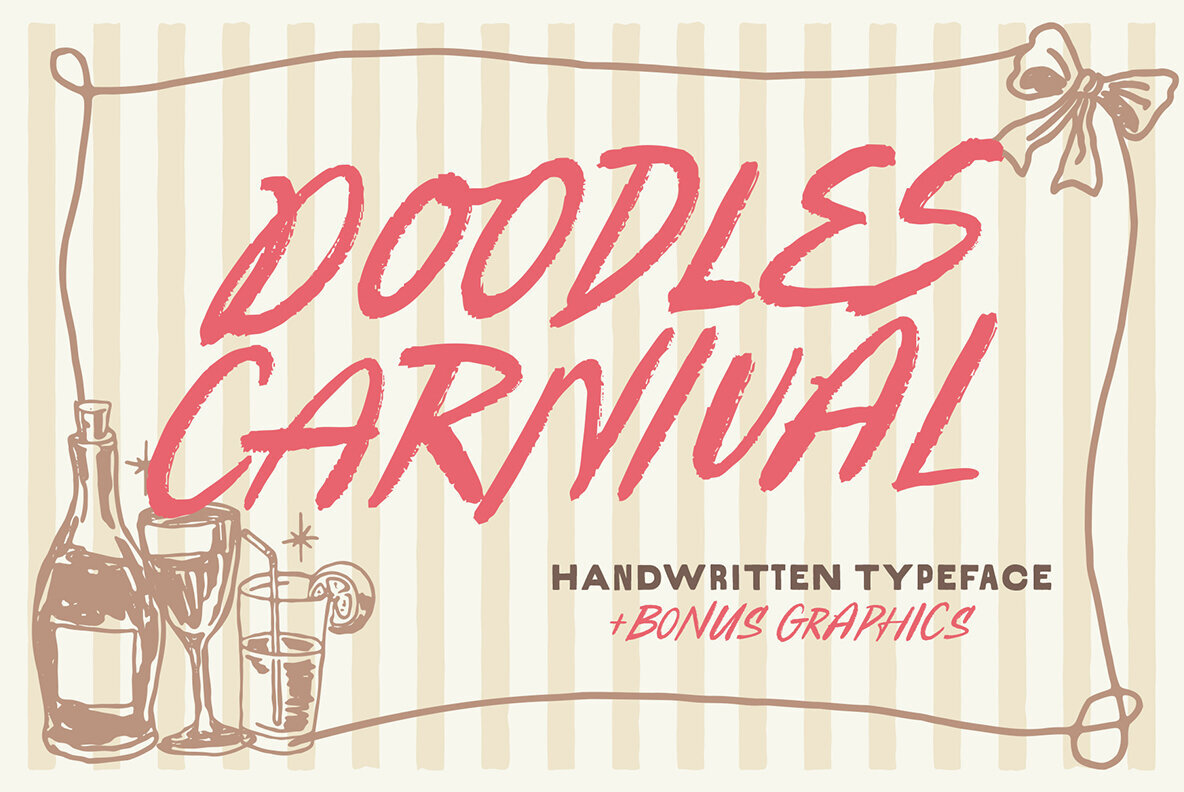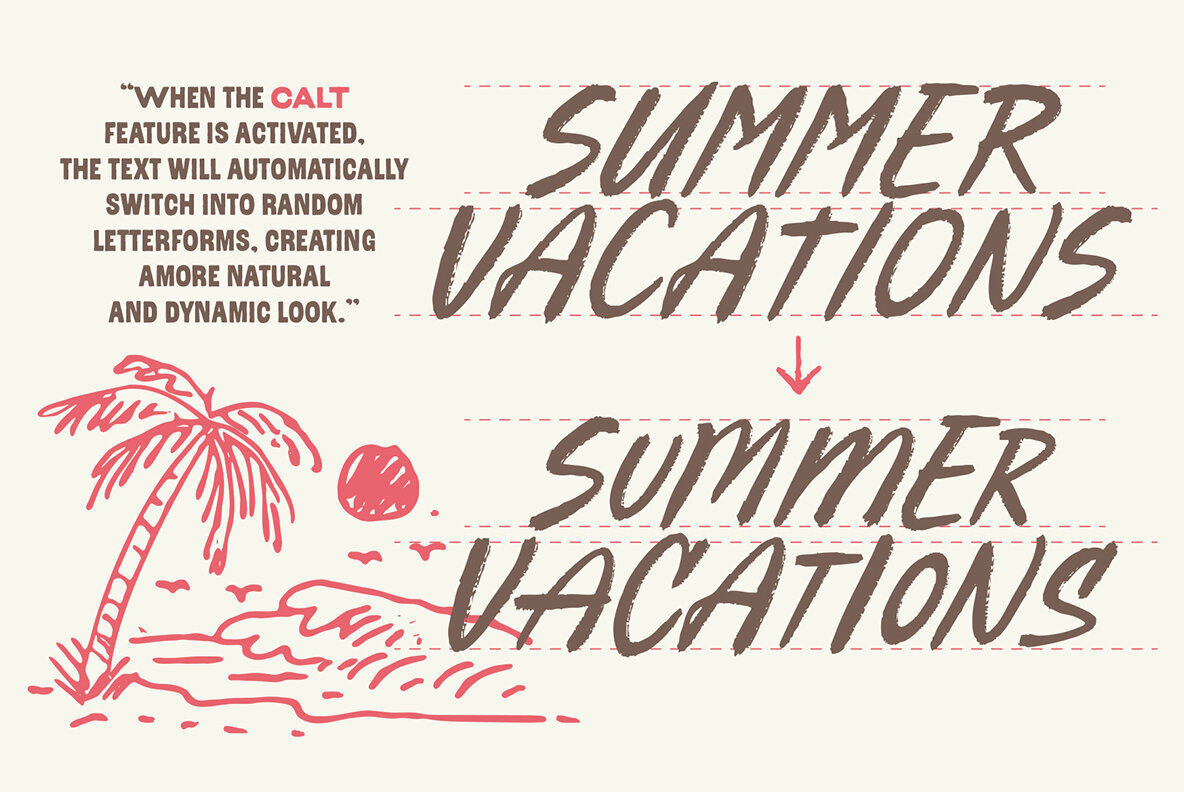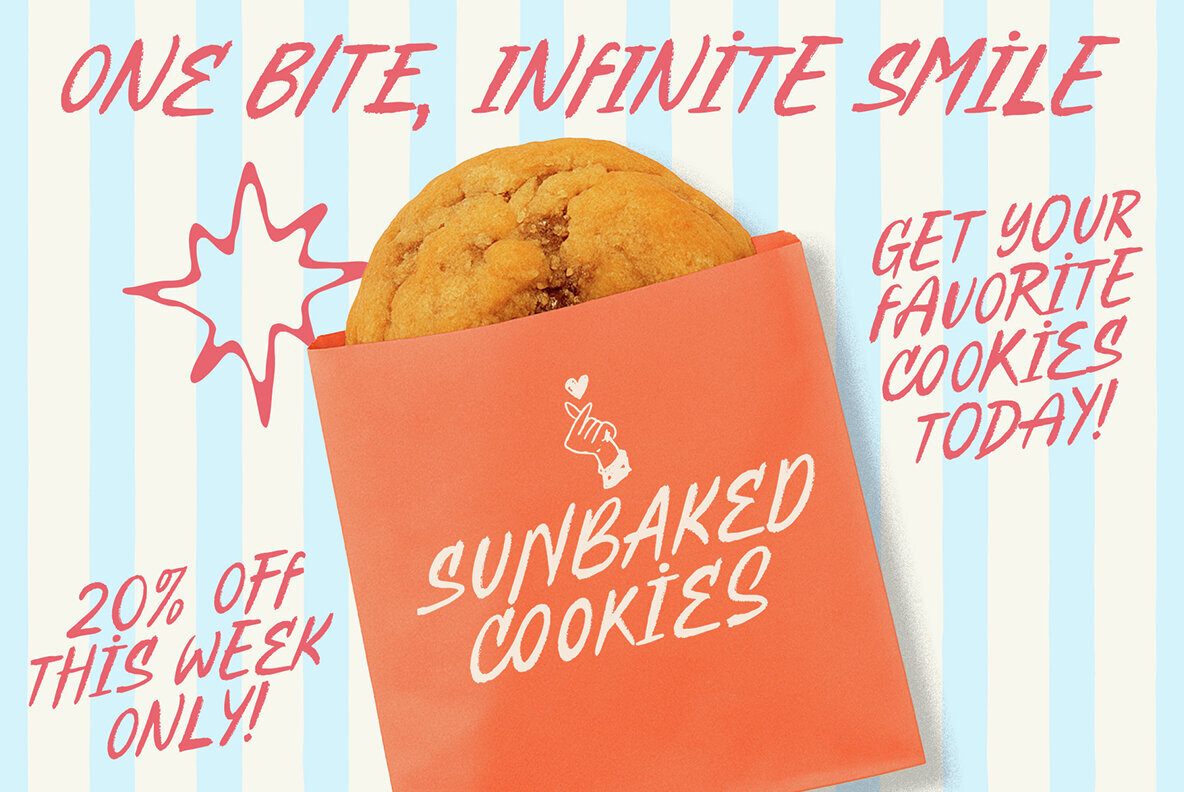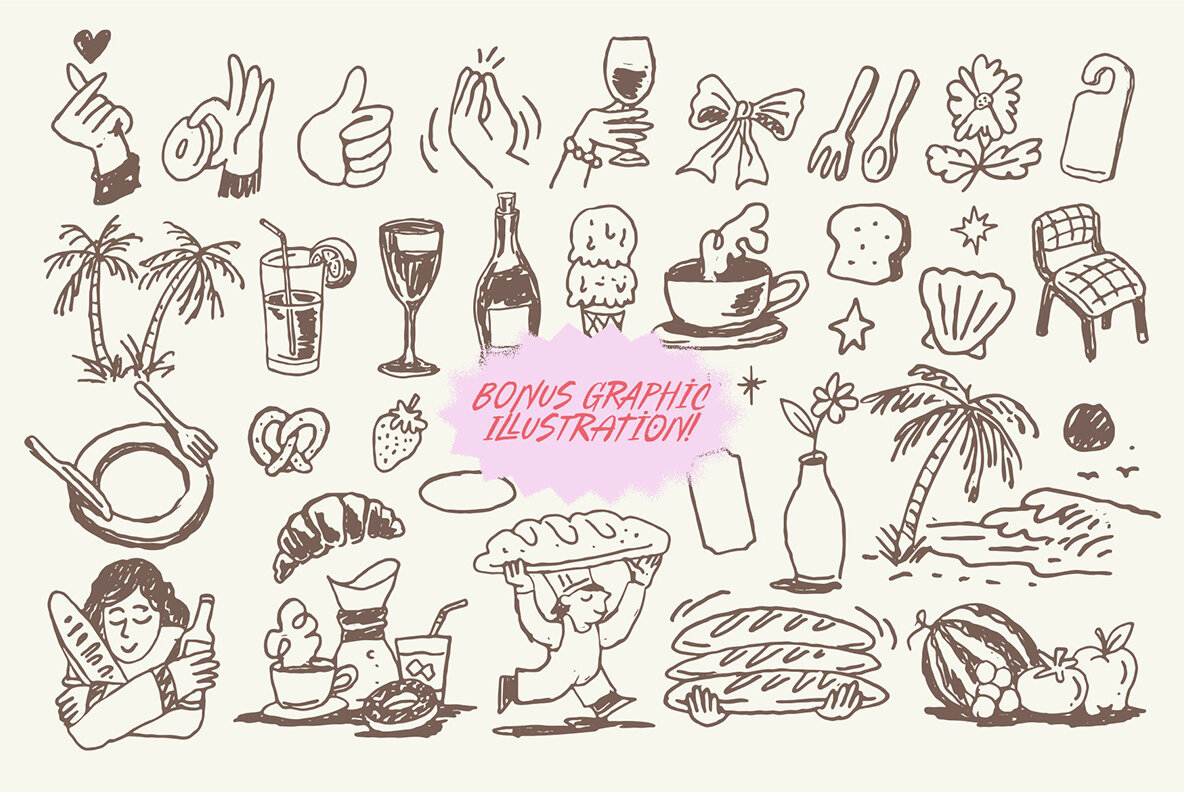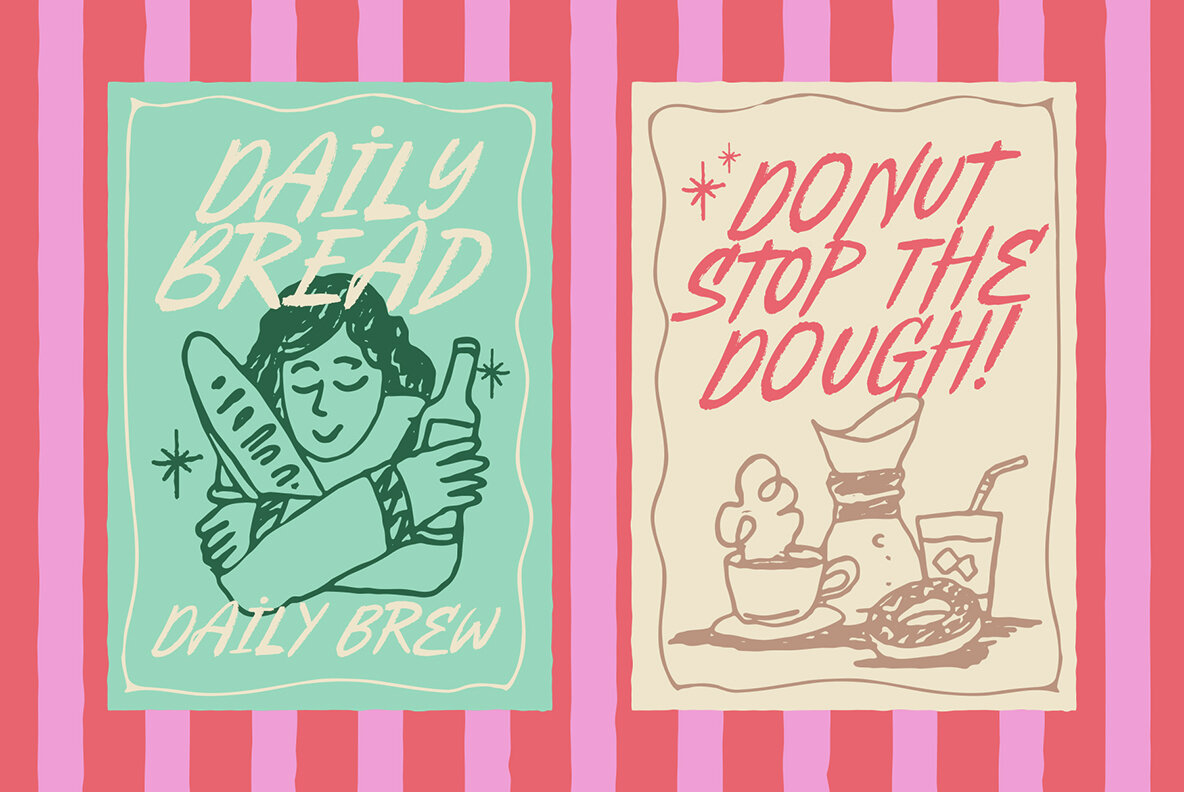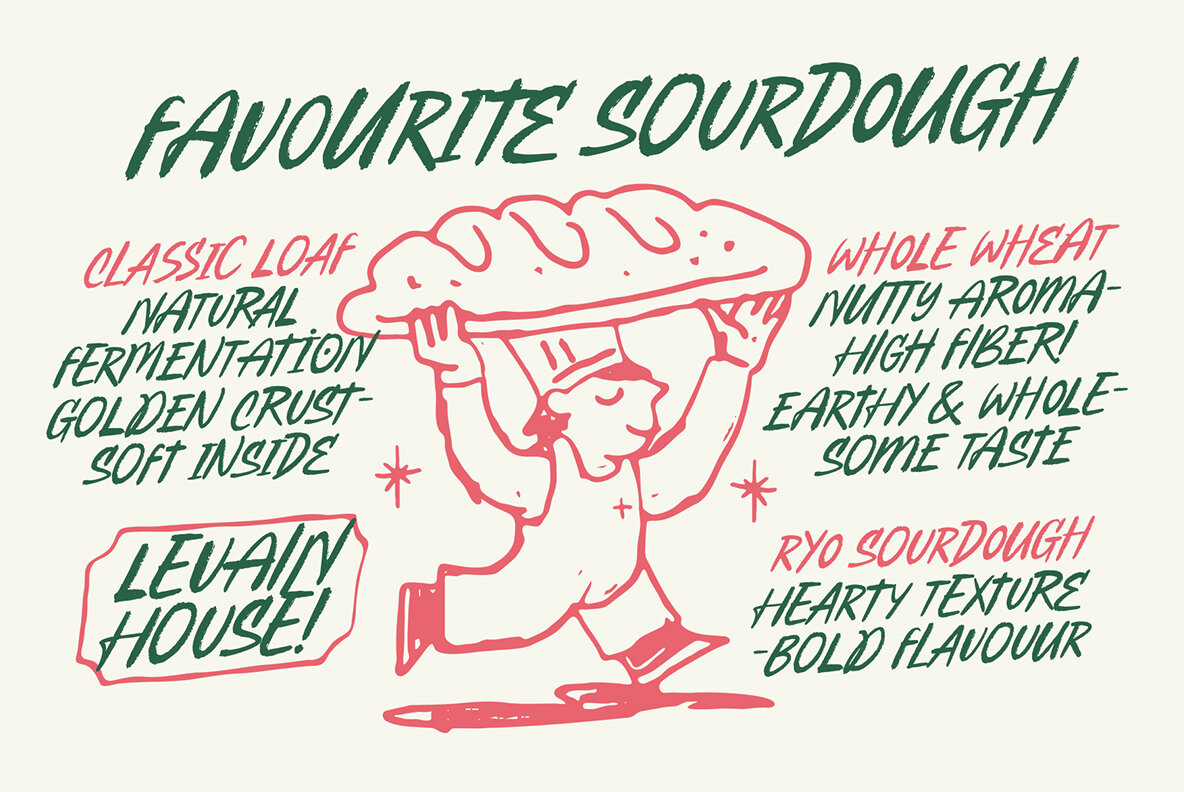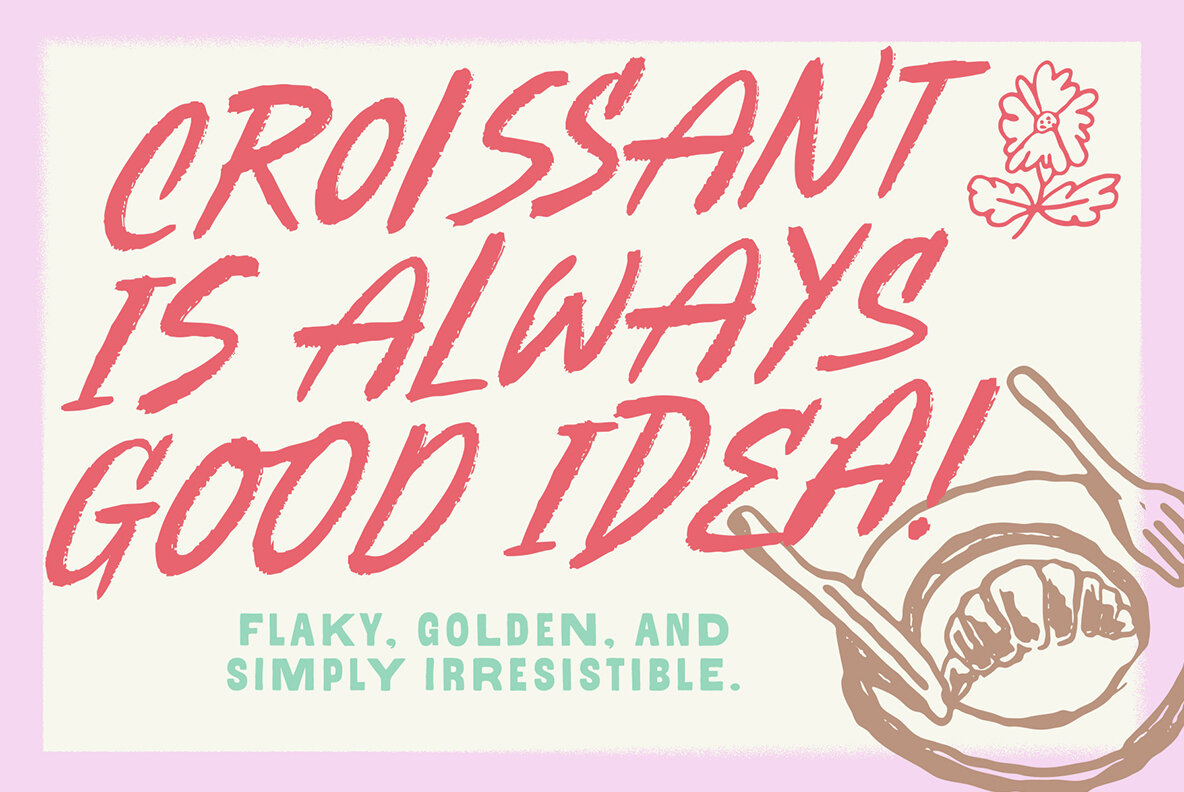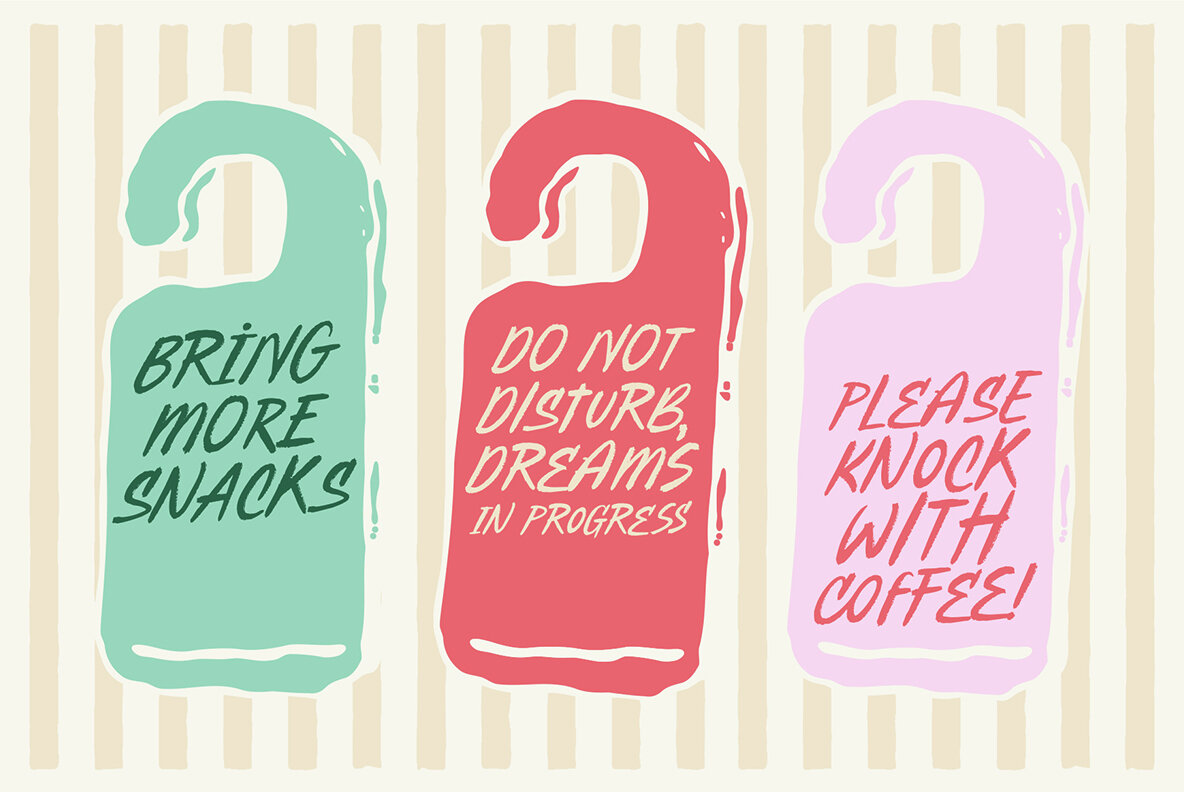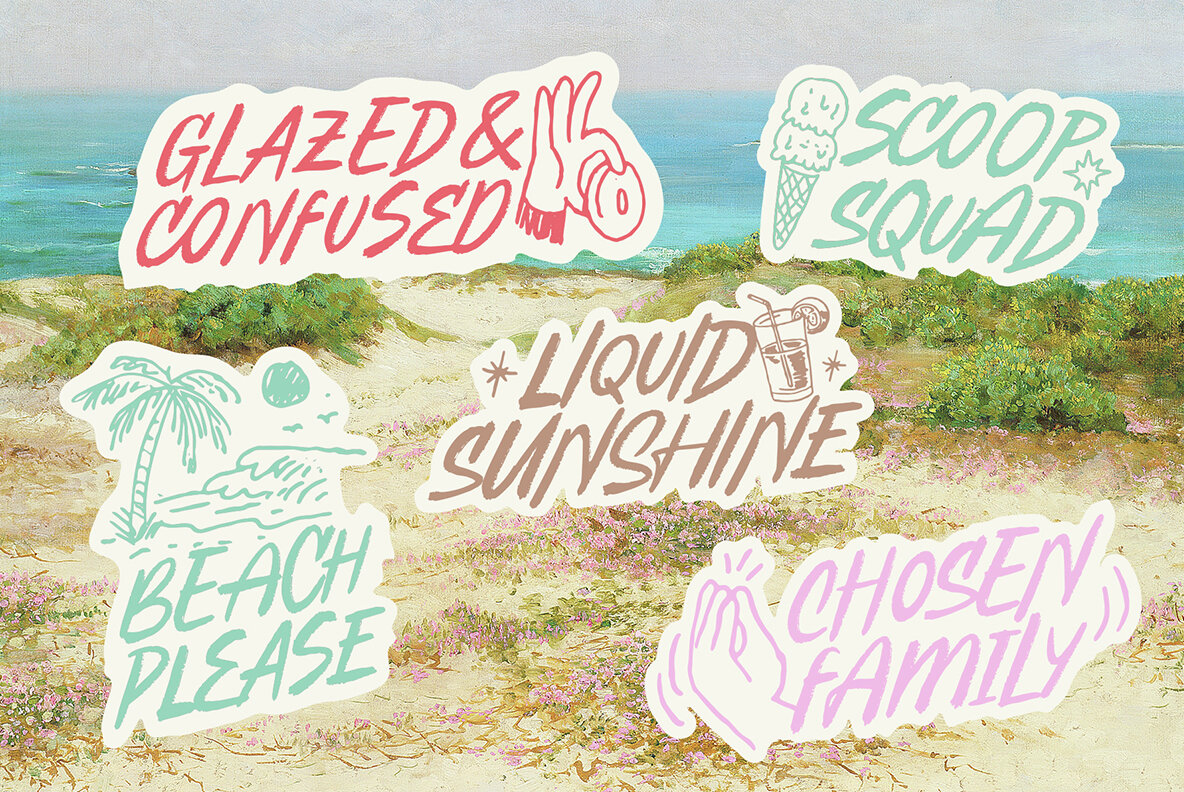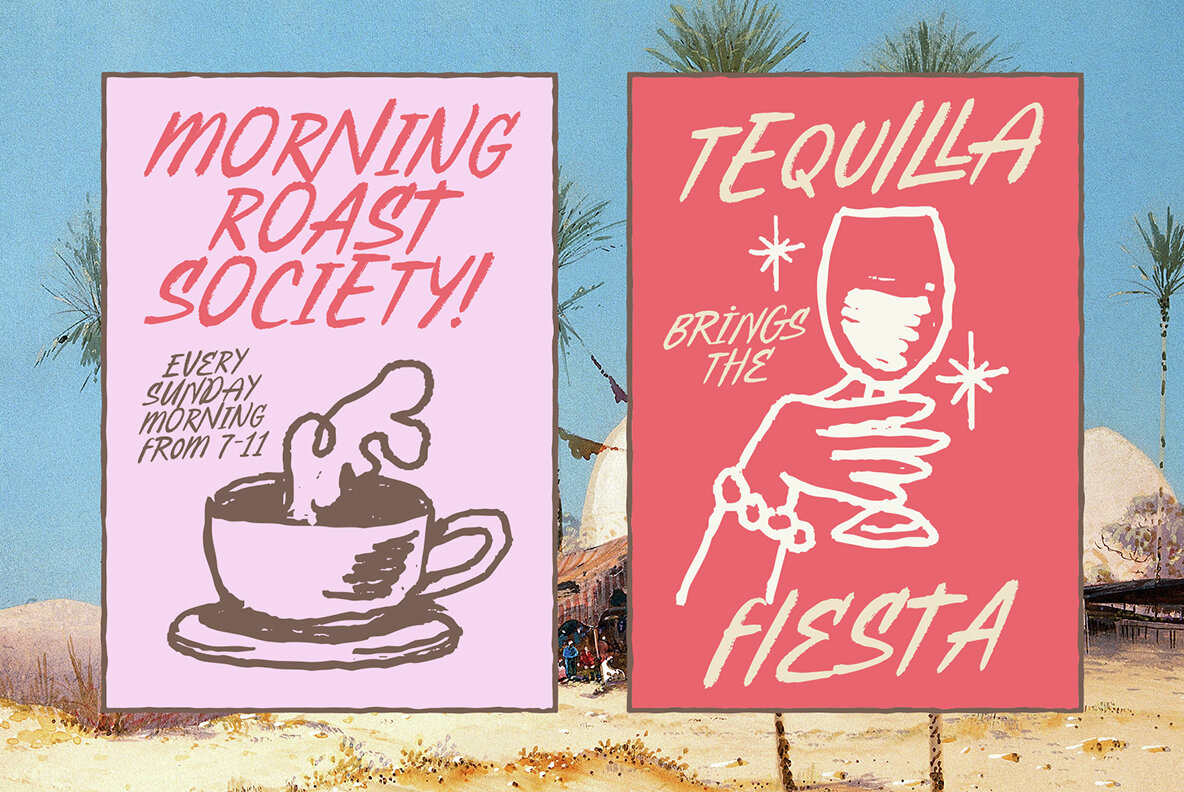
TNSC Doodles Carnival Font
Discover playful creativity with TNSC Doodles Carnival, a bold handwritten typeface that infuses projects with energy. Its expressive brush strokes and natural texture evoke a cheerful, carnival-inspired spirit, beautifying every design. Ideal for posters, packaging, invitations, branding, or greeting cards, this font introduces style alongside fun, enhancing your design narrative.TNSC Doodles Carnival: Handwritten Typeface for Vibrant Designs